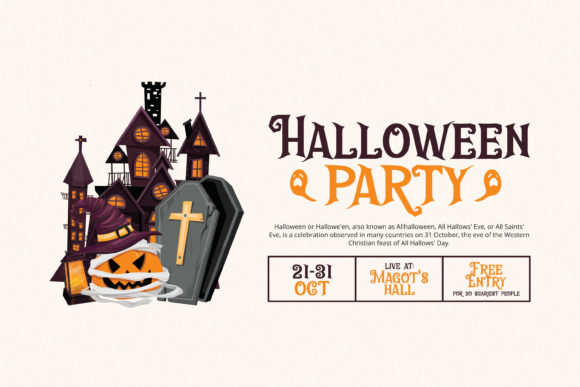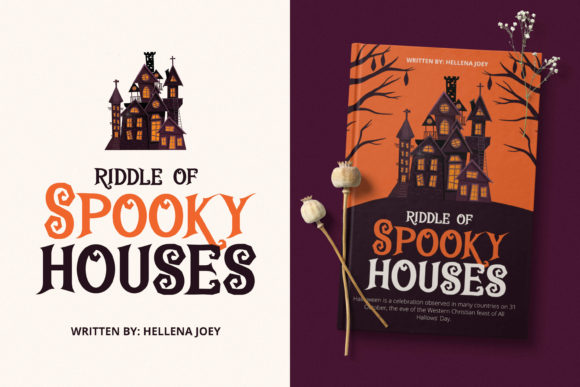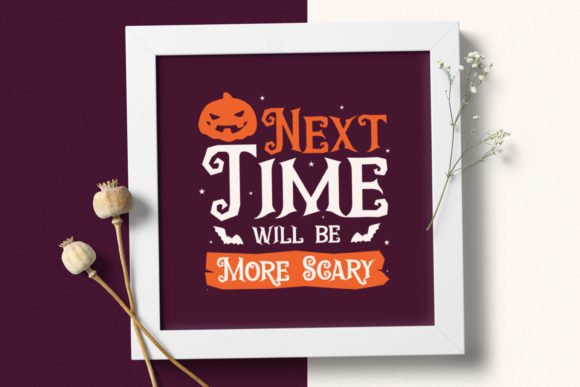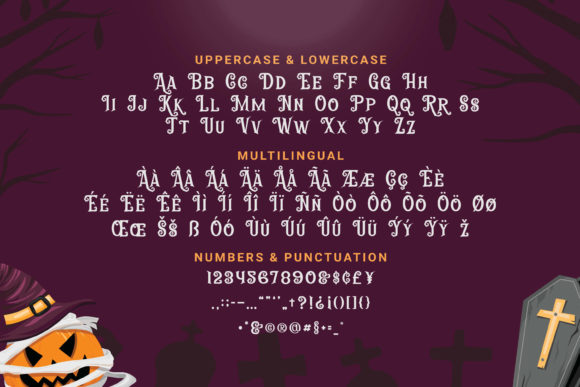
Unleash the Spooky Charm with Antique Font: The Ultimate Choice for Halloween-themed Projects
Are you a designer or crafter looking for the perfect font to add a touch of spookiness to your Halloween-themed projects? Look no further than the Antique Font, a thick-lettered and eerie display font that’s sure to cast a spell on your audience. In this article, we’ll dive into the features and benefits of the Antique Font, and explore how it can elevate your creative projects to new heights.
What is Antique Font?
The Antique Font is a unique and captivating display font that’s specifically designed to evoke the spirit of Halloween. With its thick, bold letters and spooky undertones, this font is perfect for creating eye-catching titles, headings, and graphics that will leave a lasting impression on your audience. Whether you’re working on a Halloween-themed craft project, designing invitations or decorations, or creating social media graphics, the Antique Font is the ideal choice.
Key Features of Antique Font
So, what makes the Antique Font so special? Here are some of its key features:
- Thick-lettered and spooky design: The Antique Font boasts a bold and eerie design that’s sure to grab attention.
- PUA encoded: This font is PUA (Private Use Area) encoded, which means you can access all glyphs and swashes with ease.
- Perfect for Halloween-themed projects: The Antique Font is specifically designed for Halloween-themed projects, making it the perfect choice for designers and crafters.
- Easy to use: With its user-friendly design and PUA encoding, the Antique Font is easy to use and customize.
Benefits of Using Antique Font
So, why should you choose the Antique Font for your Halloween-themed projects? Here are some benefits:
- Adds a touch of spookiness: The Antique Font adds a touch of spookiness and eeriness to your projects, making them perfect for Halloween-themed designs.
- Highly versatile: This font is highly versatile and can be used for a wide range of projects, from craft projects to digital designs.
- Easy to read: Despite its bold and thick design, the Antique Font is easy to read, making it perfect for titles, headings, and graphics.
- Unique and eye-catching: The Antique Font is a unique and eye-catching font that’s sure to grab attention and leave a lasting impression.
How to Use Antique Font in Your Projects
Using the Antique Font in your projects is easy. Here are some tips:
- Use it for titles and headings: Use the Antique Font for titles and headings to add a touch of spookiness and emphasis.
| Font Name | Antique Font |
| Author | Runsell Graphic |